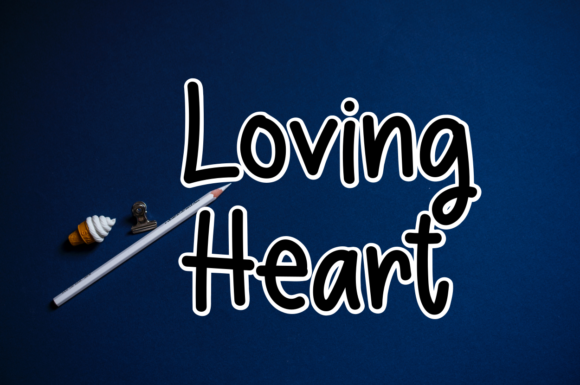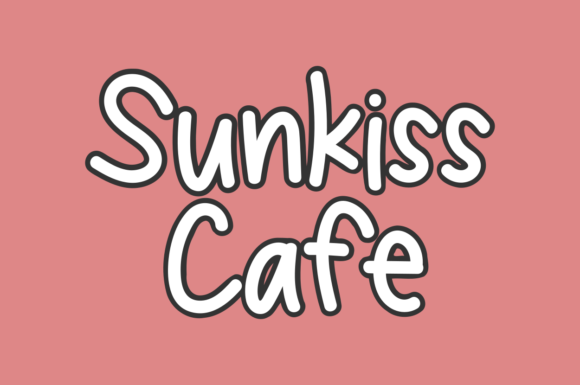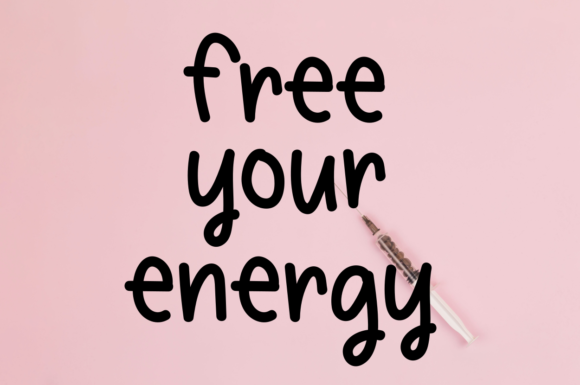
Introduction to Nice Farmhouse Font
Do you ever find yourself rummaging through your design files, searching for the perfect font to bring your creative project to life? For designers like you and me, it’s a moment we’ve all been there – staring at a blank canvas, waiting for the perfect inspiration to strike. That’s where Nice Farmhouse Font comes in, a charming and unique design resource that’s sure to spark your imagination.
With its natural and effortless style, Nice Farmhouse Font is the perfect addition to any design. Whether you’re working on a high-quality brochure, a free download template, or a creative project that requires a touch of whimsy, this font is sure to bring a smile to your face. Its transparent background and high-quality design make it a valuable asset for any designer looking to add a little extra charm to their work.
Key Features of Nice Farmhouse Font
- High-quality design resource for creative projects, ideal for farmhouse-themed designs.
- Features a transparent background, making it easy to use with various design elements and backgrounds.
- Unique, rustic charm adds a touch of authenticity to any design project, perfect for country-themed designs and more.
Honest Review: Nice Farmhouse Font
As a designer, I’m always on the lookout for high-quality design resources that can elevate my creative projects. The Nice Farmhouse Font is one such resource that caught my attention. In this review, I’ll share my honest thoughts on this font and what makes it stand out.
- Unique and charming design: The Nice Farmhouse Font has a distinct, vintage feel that’s perfect for rustic or country-themed projects.
- High quality: The font is well-designed and has a clear, crisp texture that’s easy to read.
- Transparent background: Unfortunately, the font doesn’t come with a transparent background, which can be a limitation for designers who need to use it on complex backgrounds.
- Limited character set: The font’s character set is relatively small, which may not be ideal for projects that require a wide range of characters.
Overall, I’m impressed with the Nice Farmhouse Font’s unique design and high quality. While it has some limitations, it’s a great resource for designers working on creative projects that require a rustic or vintage feel.
The Nice Farmhouse Font is a high-quality design resource ideal for creative projects that require a rustic and charming touch. With a transparent background, this font is perfect for overlaying on images or using as a standalone element in your design.
The Nice Farmhouse Font is perfect for a variety of creative projects, including:
- Birthday and wedding invitations
- Food and product labels
- Signs and banners
- Photography overlays